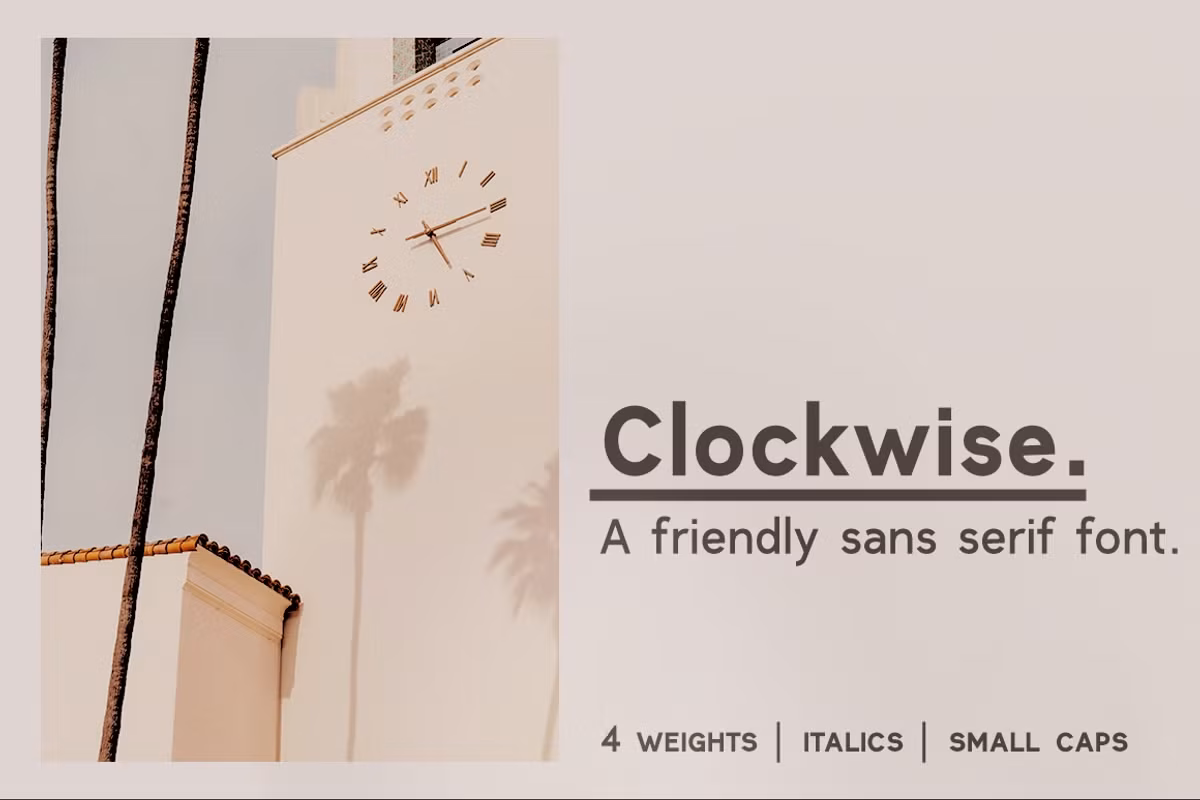
Clockwise sans serif font Free Download
Clockwise Sans Serif Font Free Download
Clockwise Sans Serif Font Free Download is a sleek and modern typeface designed for clarity and professionalism. Featuring clean lines, balanced proportions, and a minimalist design, this font is perfect for creating contemporary branding, websites, logos, social media graphics, and more.
Its simple, geometric design ensures legibility and versatility, making it ideal for both large headings and small body text. Whether you're designing for a corporate brand, a creative campaign, or a digital platform, Clockwise Sans Serif Font Free Download adds a polished, modern touch to your typography.